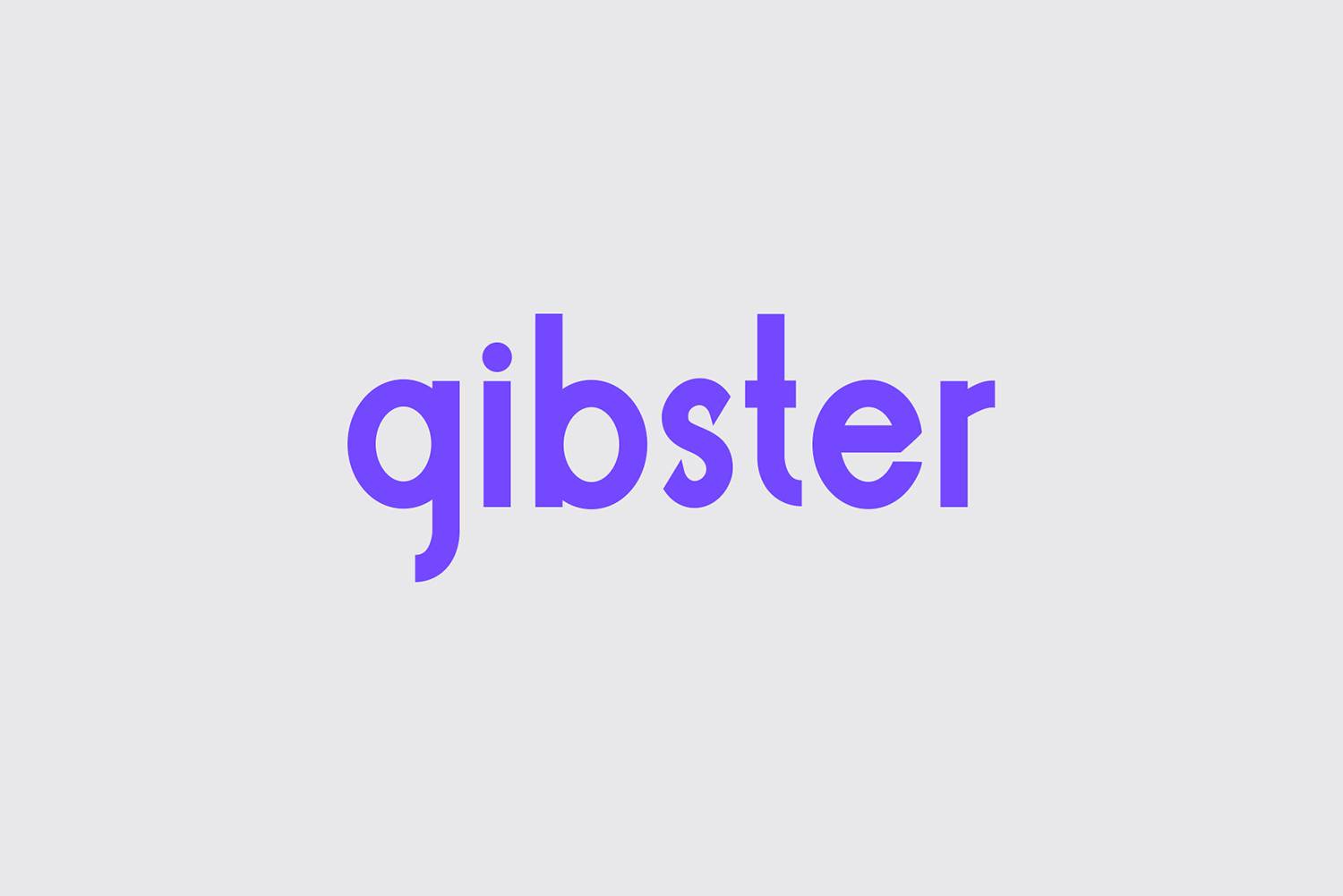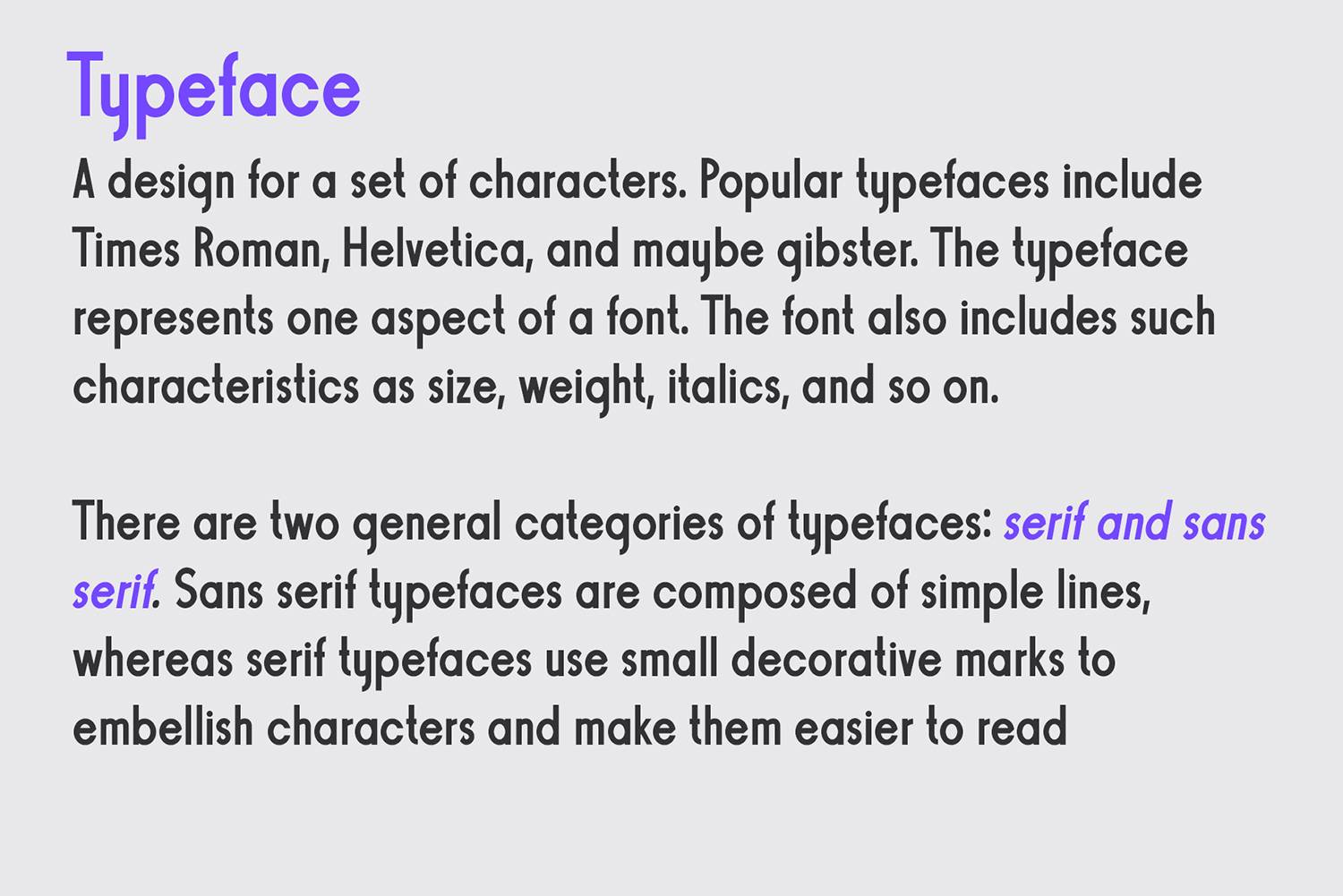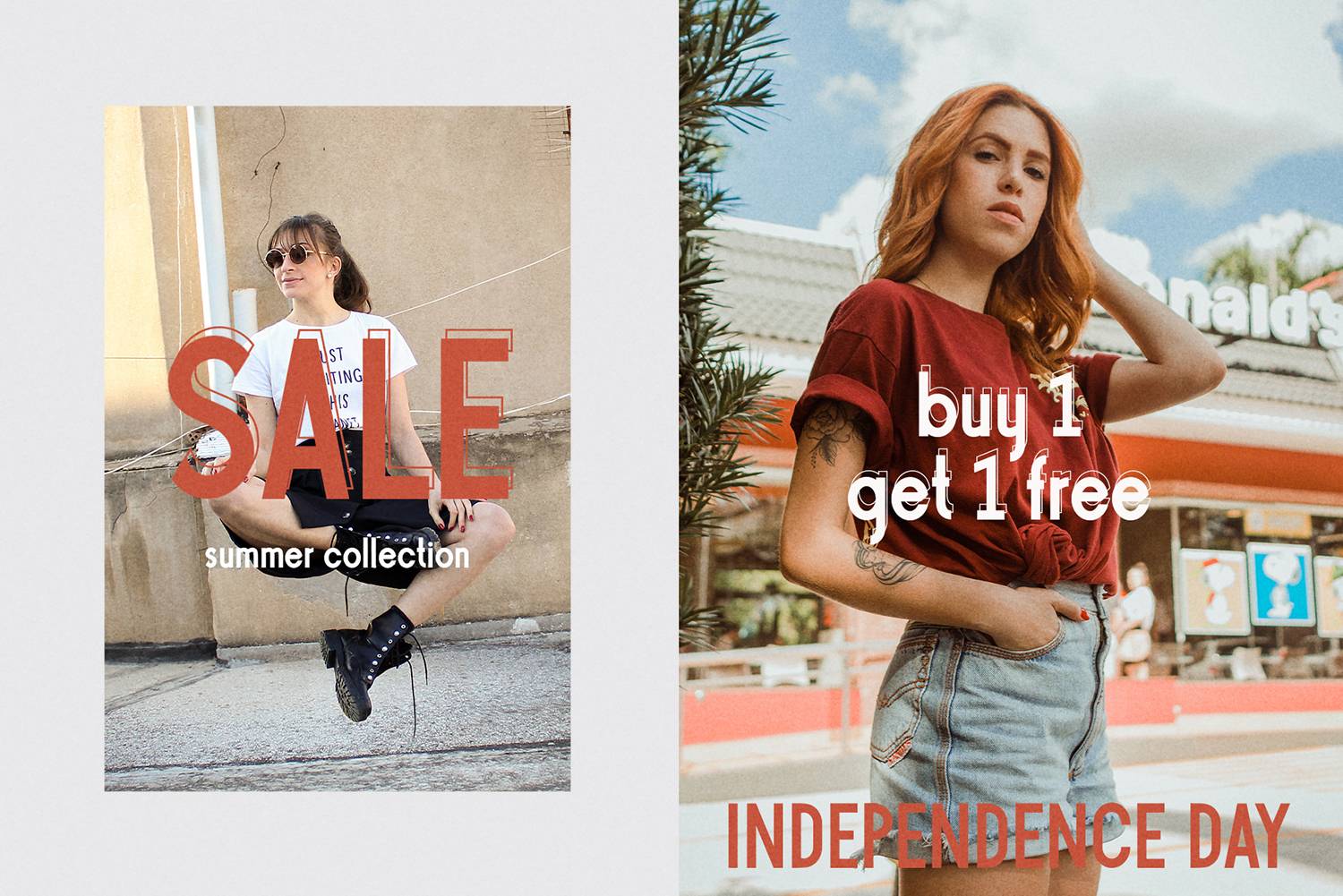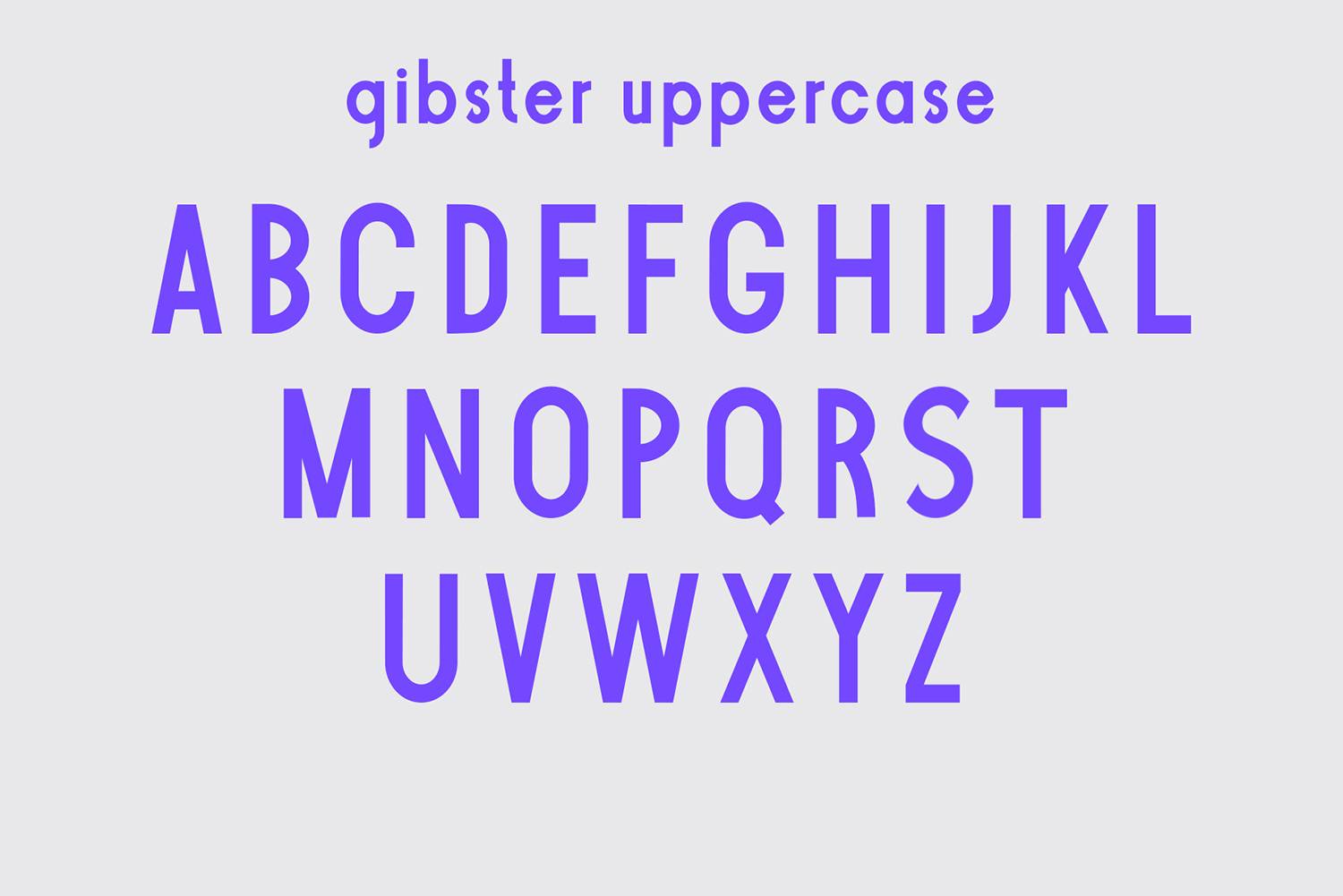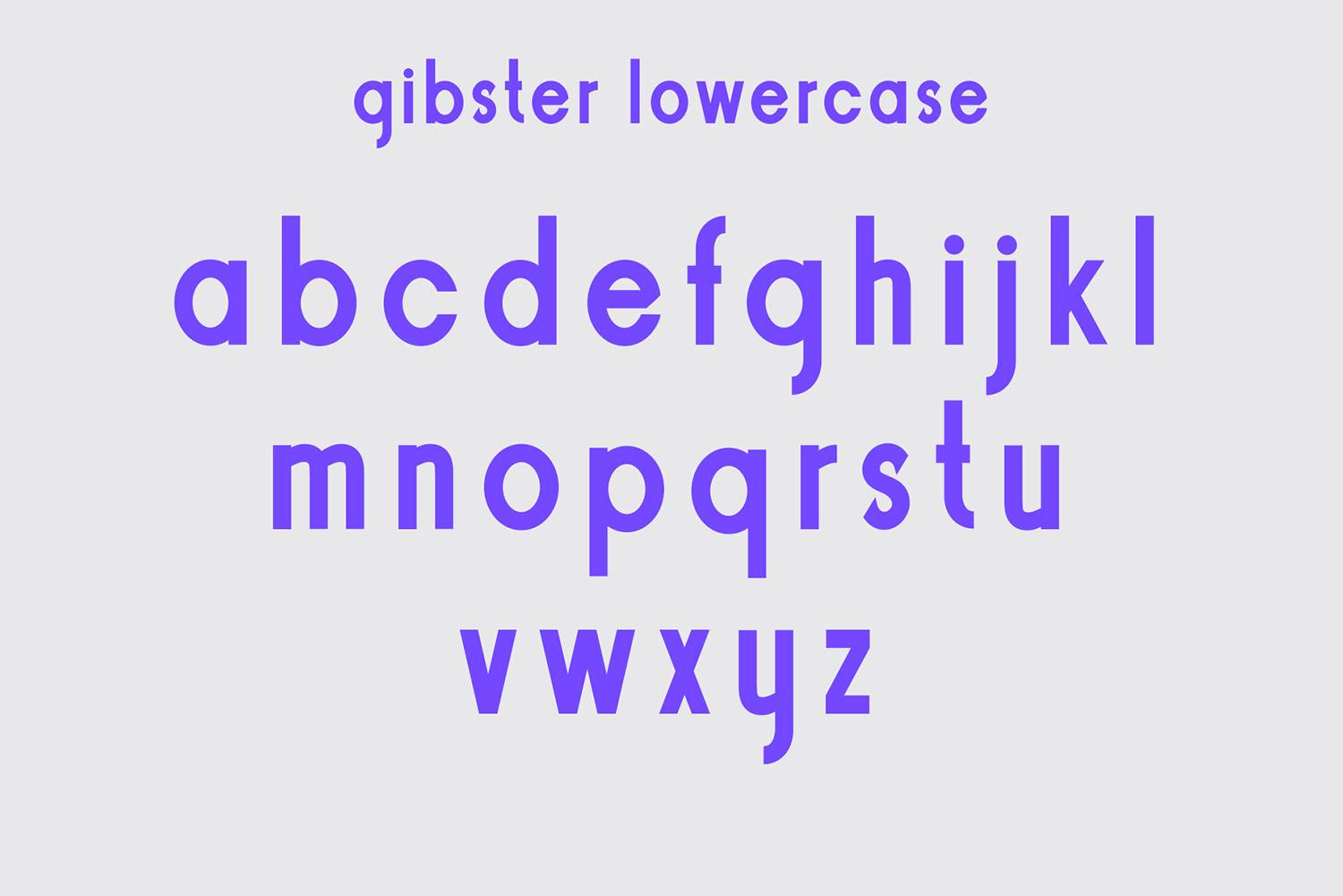
Gibster Sans is a modern, condensed sans serif font with a clean and straightforward design, featuring medium weight and a tall x-height that enhances readability. Its slightly geometric letterforms combined with subtle curves give it a professional yet approachable personality, making it well-suited for branding, headlines, and editorial use where clarity and impact are essential. This font works especially well in environments where space is limited but clear communication is needed.
Gibster Sans Font
About Gibster Sans Font
| Font family | Gibster Sans Font |
| Designer | Welianto |